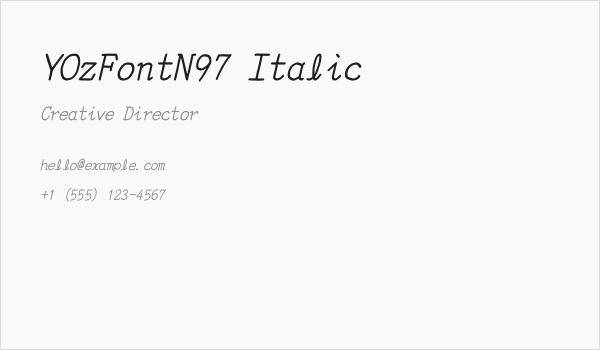
YOzFontN97 Italic Font
YOzFontN97 Italic Description
This font features a distinct italic style with a handwritten appearance, characterized by its fluid and slightly slanted letterforms. The uppercase letters maintain a consistent height and are elegantly curved, while the lowercase letters exhibit a smooth, flowing quality that enhances readability. The numerals are well-proportioned and align harmoniously with the alphabetic characters. Special characters are thoughtfully designed to match the overall aesthetic, making this font suitable for a variety of creative applications. The spacing between characters is balanced, ensuring clarity and legibility across different sizes.
| Use Case | Logos, Headlines, Artistic designs |
| Proposed Projects | Ideal for personal invitations, greeting cards, branding projects, and artistic designs. |